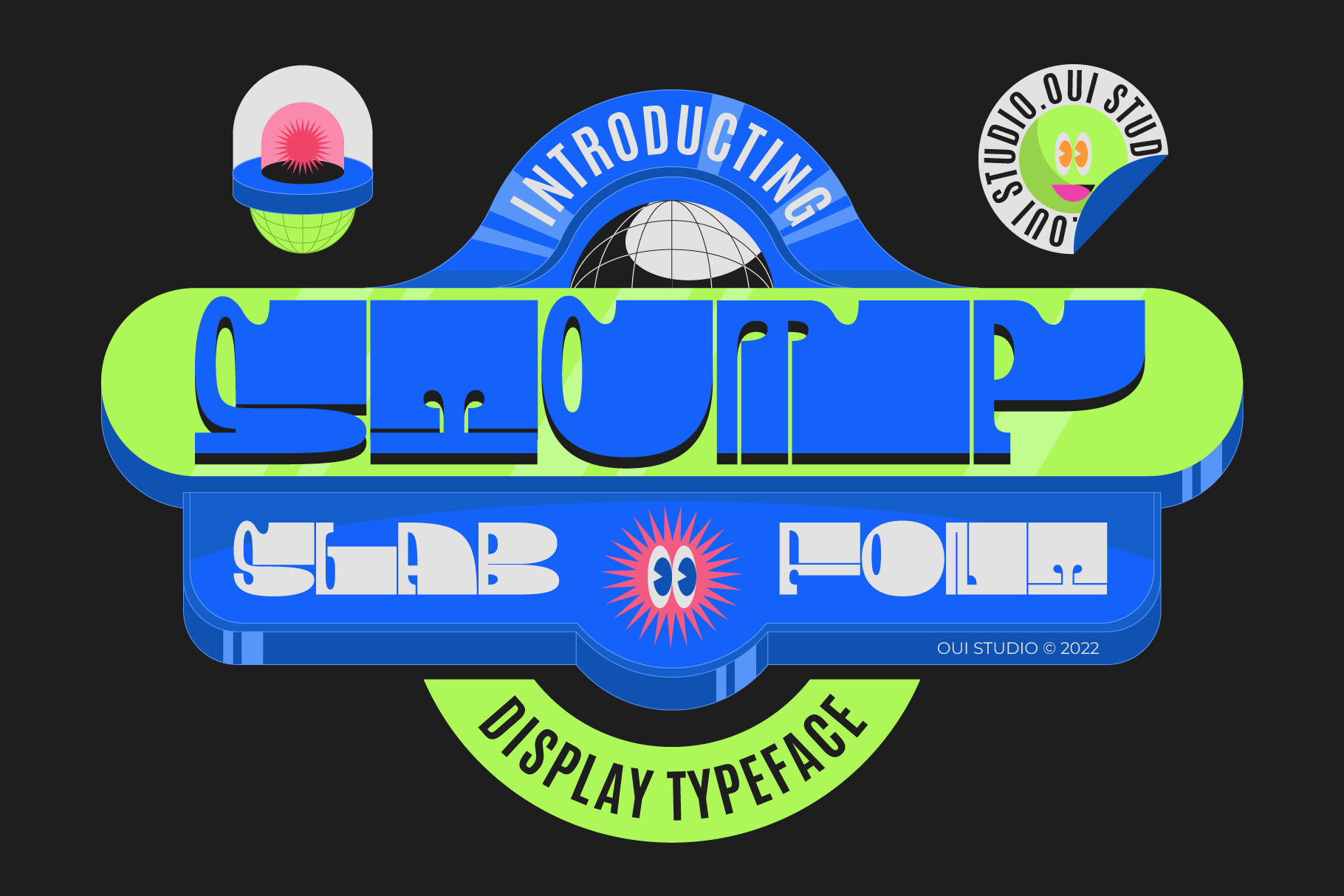
Stomp Slab Font
Hello, friends! The 'Stomp' font is coming, a thick and thin slab font with a dynamic shape. Stomp is very inspired by vintage slab font with cartoons from the 80s and pop culture. It's perfect for branding, logo, packaging, header, t-shirt design, poster, band, music, album, etc. Stomp has a consistent thin and thick line in every glyph. Thank you!